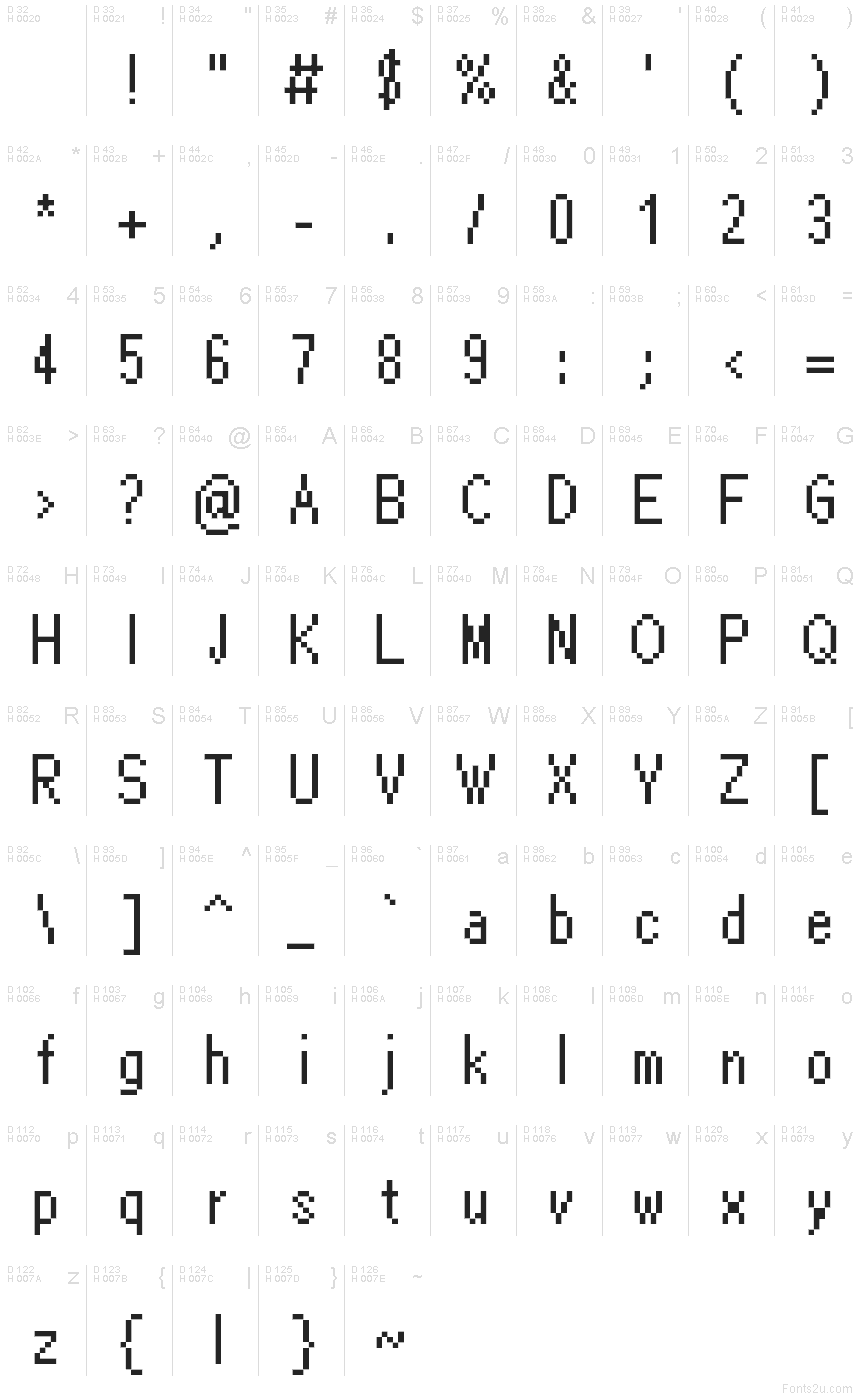
Ari-W9500 Condensed Regular
Ari-W9500 Condensed font by Catterio Sylt is a pixelated bitmap typeface that captures the essence of modernist, geometric, and minimalist design. With its condensed structure and digital influence, it radiates a futuristic vibe while maintaining a clean, structured appearance. This unique font effortlessly combines geometric elements with a contemporary aesthetic.
This free pixel font is ideal for designing video game interfaces, tech-related websites, digital art projects, or anything where a sleek futuristic look is needed. It’s perfect for posters, packaging designs, mobile apps, landing pages microcopy, educational platforms related to technology or science – even for crafting captivating headlines and business cards.
Designer description: The condensed style of Ari-W9500.